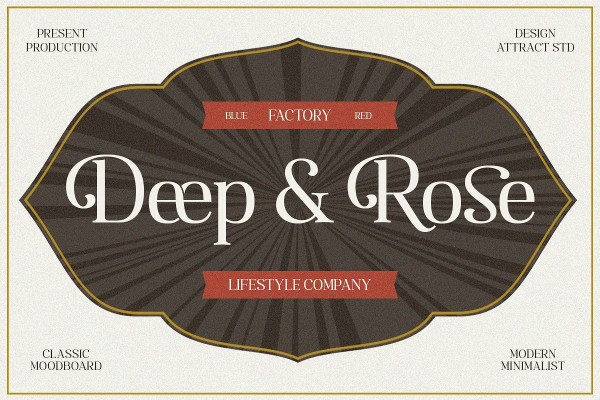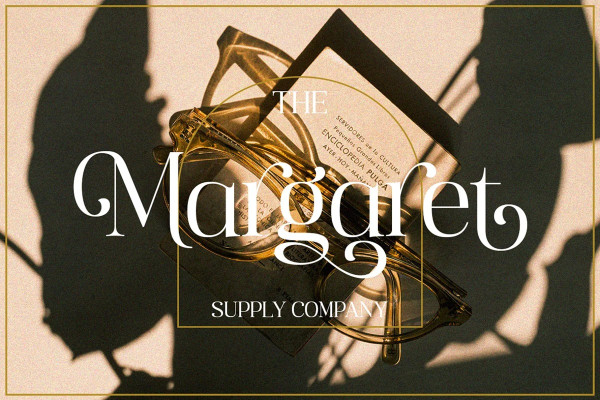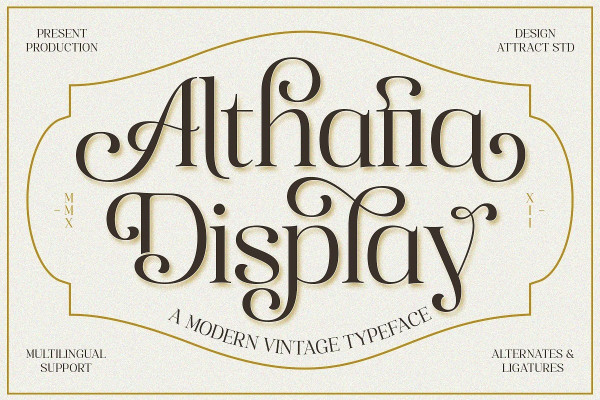
Althafia Display Font
Althafia Display Font is a fancy display serif font with a unique character inspired by old-style serifs and contemporary serif fonts. Has dozens of fancy Alternates and Ligatures to combine in making Labels, signage, titles, logos, and many other creative projects.